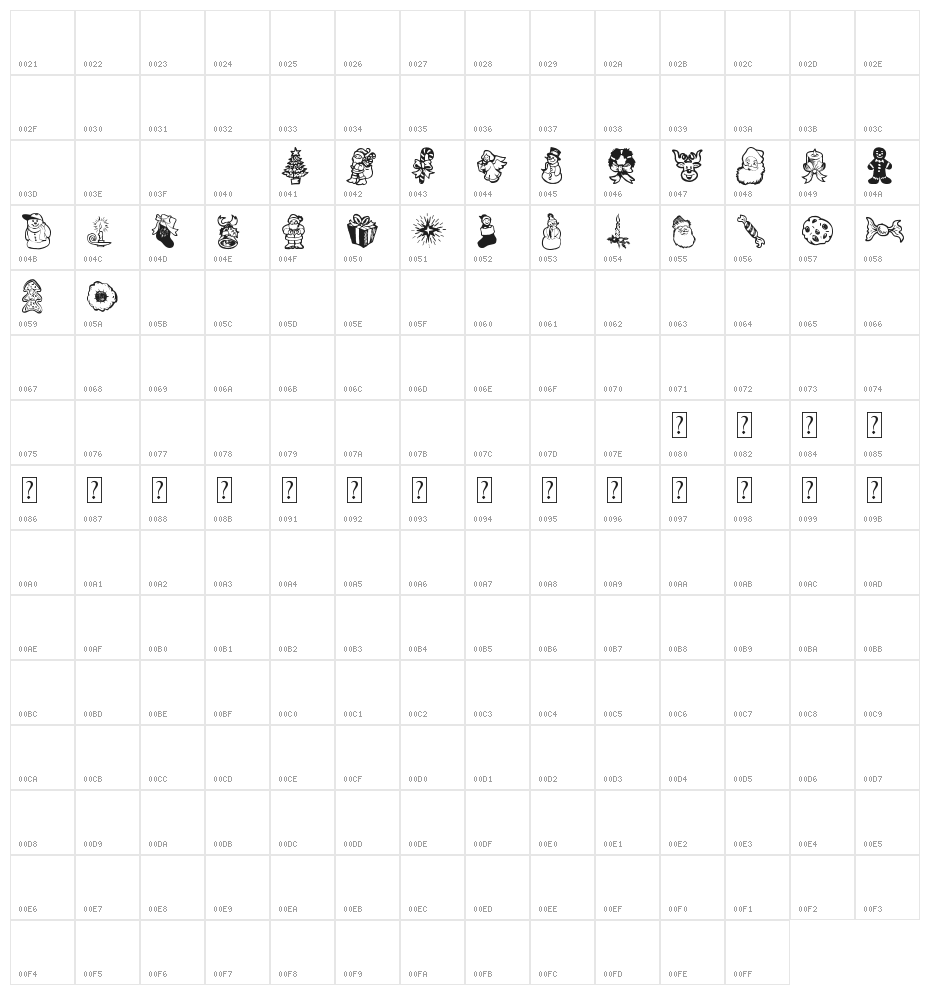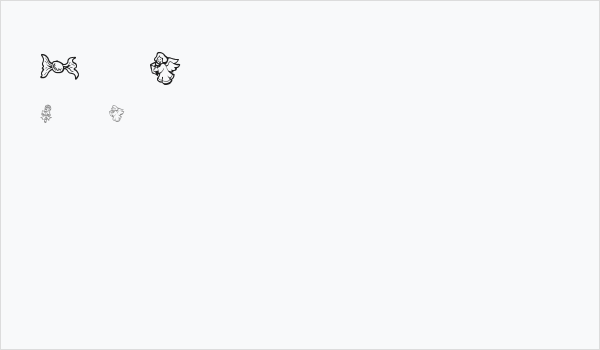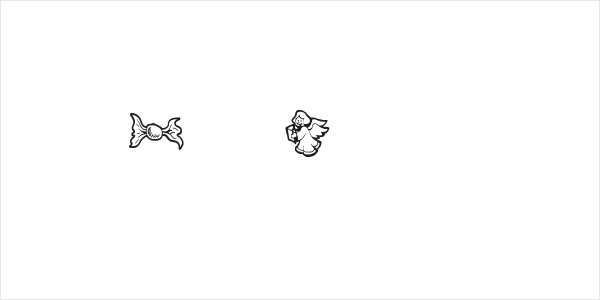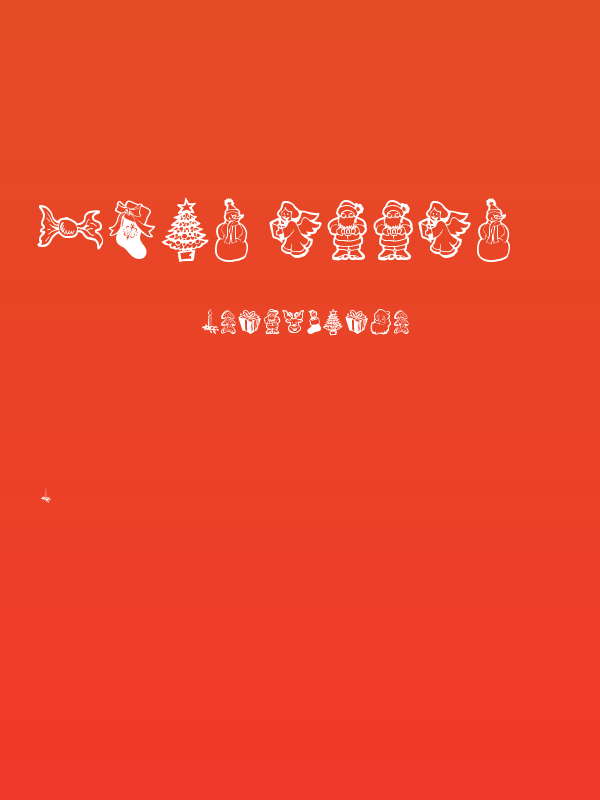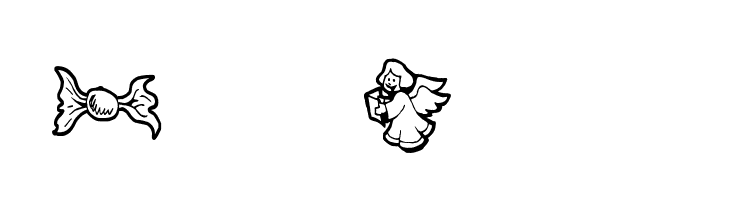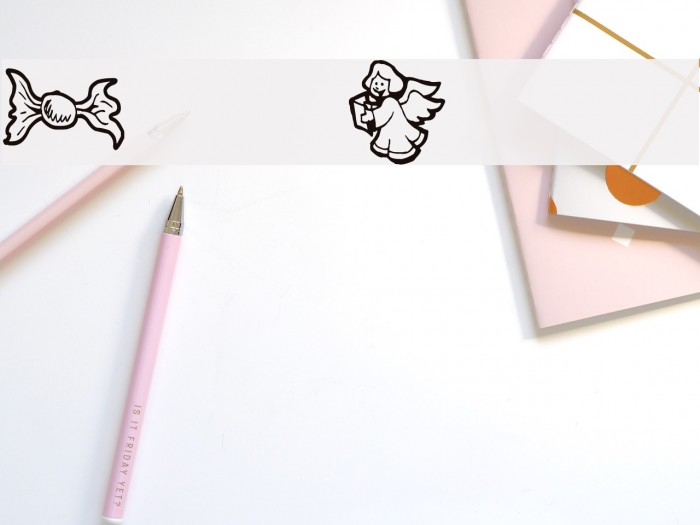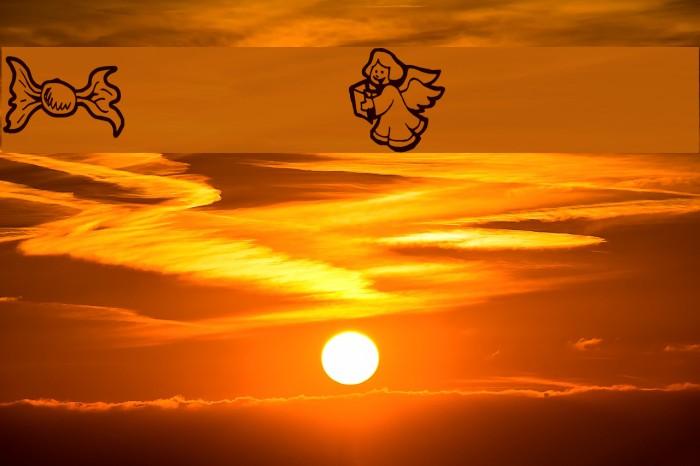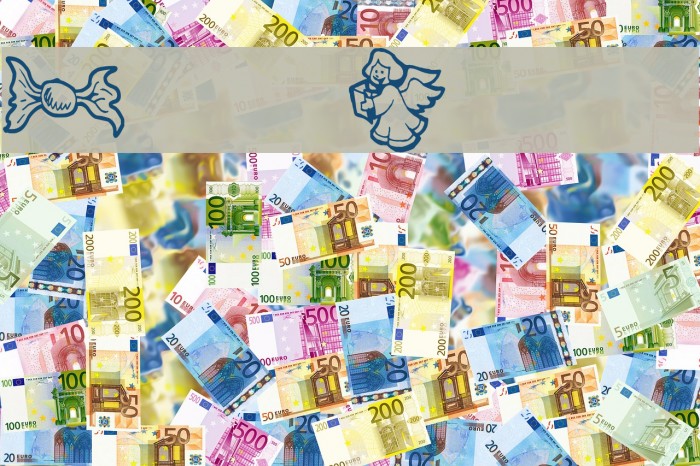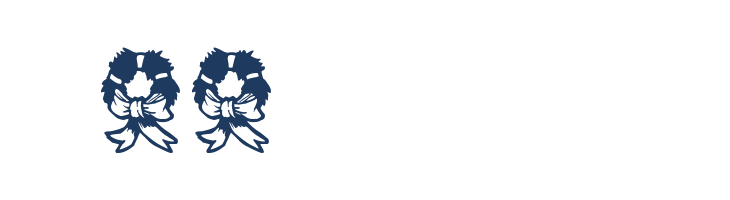
Xmas Doods 2 Font
A decorative dingbat font featuring a variety of hand-drawn Christmas-themed illustrations such as Santa Claus, snowmen, gifts, wreaths, candles, cookies, and festive icons. The images are rendered in black and white with playful, cartoon-like linework.
| Overall Style | Decorative, Playful, Festive |
| Use Case | Decorative elements, Icons, Themed graphics |
| Proposed Projects | Holiday cards, festive invitations, seasonal crafts, gift tags, event flyers, digital scrapbooking. |